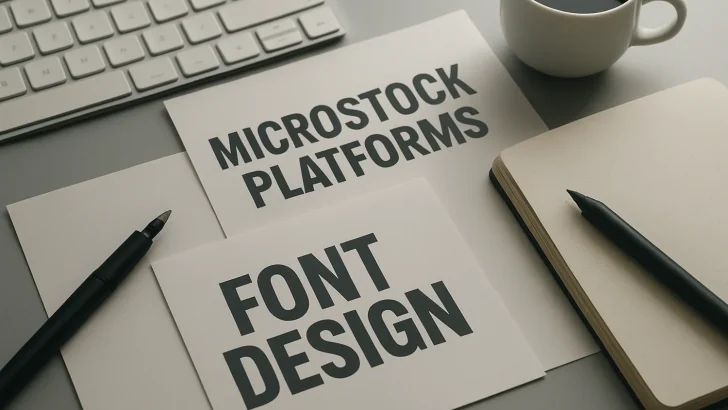
Learn how font designers can thrive on microstock platforms in an AI-driven market. Discover strategies for positioning, bundling, SEO, and selling fonts with real branding value.
With AI-generated content flooding visual marketplaces, microstock platforms have become more competitive than ever. Designers now face a new challenge: how to stand out when AI can produce thousands of design assets in seconds โ including fonts.
But hereโs the opportunity most designers overlook:
๐ Microstock platforms still reward authenticity, curation, and specialization.
๐ Buyers still prefer fonts with branding personality and commercial clarity.
So instead of competing with AI volume, smart designers win with strategy.
1. Focus on Niche Font Categories (AI Struggles With Specificity)
AI is great at generating generic fonts, but microstock buyers are increasingly searching for:
-
Cultural and regional typography (Arabic, Thai, Indonesian script-inspired, etc.)
-
Thematic fonts (grunge, retro 70โs, cyberpunk futuristic)
-
Industry-specific styles (fonts for food branding, kids’ products, sports headlines)
Fonts with a clear niche and narrative sell more consistently than generic sans-serifs that AI can generate instantly.
๐ก Tip: Use keywords like “Kawaii Handwriting Font” or “Brutalist Display Typeface” to target niche microstock searches.
2. Bundle Fonts for Higher Value
Instead of uploading fonts individually, package them like this:
-
Font Family Packs (Regular / Bold / Italic / Rounded)
-
Branding Kits (Font + color palette + sample logo template)
-
Seasonal Collections (Holiday fonts, summer fonts, etc.)
Microstock buyers love ready-to-use assets, not just raw files.
โ Font bundles increase perceived value
โ Font families appeal to brand and agency-level buyers
3. Show Real Use Cases (Mockups Matter!)
On microstock platforms, preview images (thumbnails) are often the deciding factor.
Show your font in action:
-
On packaging
-
On posters and editorial layouts
-
On social media templates
-
On UI mockups or landing pages
Because buyers think visually โ they donโt imagine, they decide.
Fonts without mockups = invisible
Fonts with mockups = profitable
4. Position Your Font as โHuman-Made,โ Not Just โHandwrittenโ
AI fonts may be clean, but they lack emotional authenticity.
Font listings that emphasize human-crafted value tend to convert better:
โ
“Handcrafted lettering with natural texture”
โ
“Authentic stroke variations preserved from real brush markers”
Human-made = premium positioning.
5. Double Down on SEO and Metadata (The Secret Sauce)
Most designers upload fonts and forget about the metadata.
Microstock platforms rely on search algorithms โ just like Google.
Include keywords like:
-
“branding font”
-
“logo-friendly typeface”
-
“hand-drawn display font”
And always include this trio in your listings:
๐ Primary Keyword (style): handwritten font
๐ Intended Use (application): logo branding font
๐ Emotional Value (vibe): playful, bold, elegant
Example title:
“Bold Retro Handwritten Font โ Logo Branding Typeface”